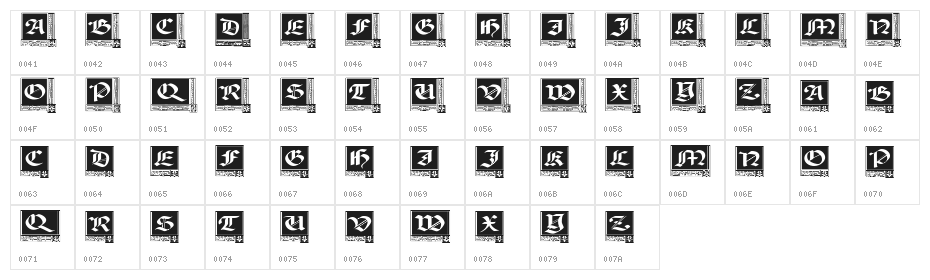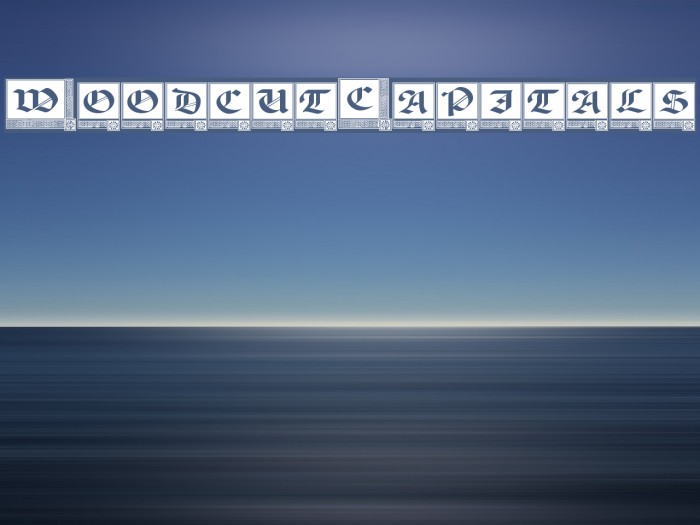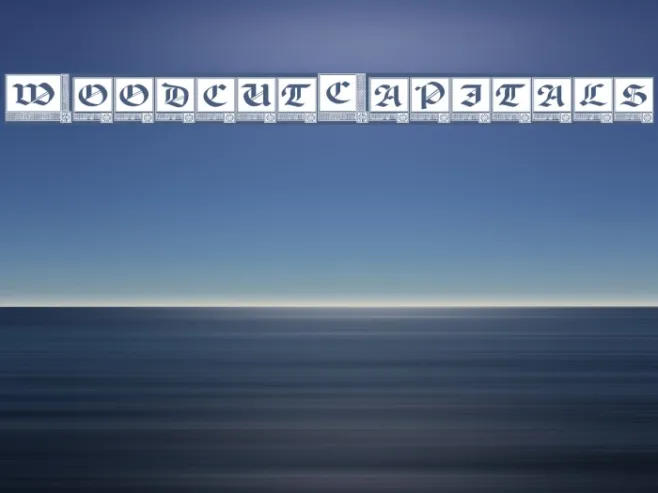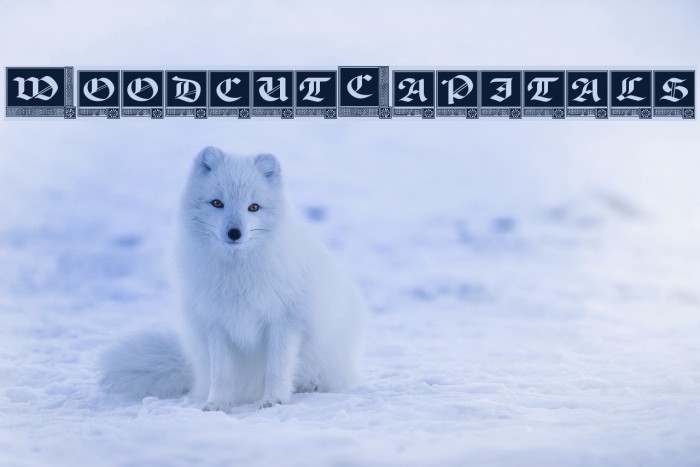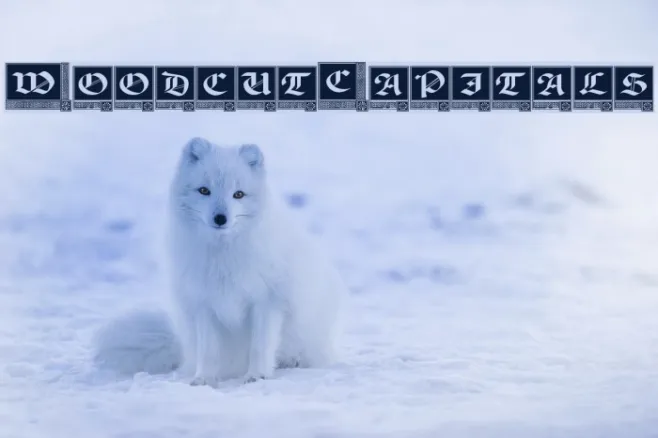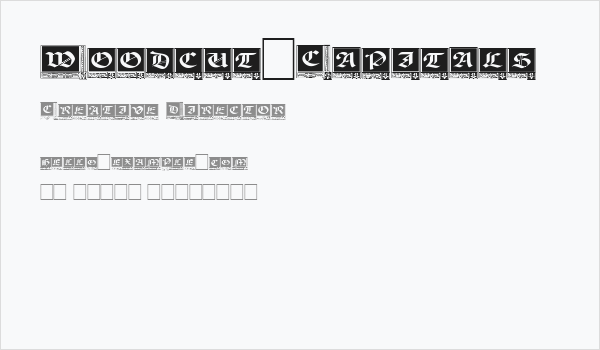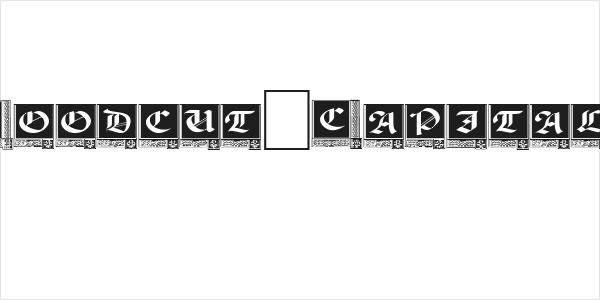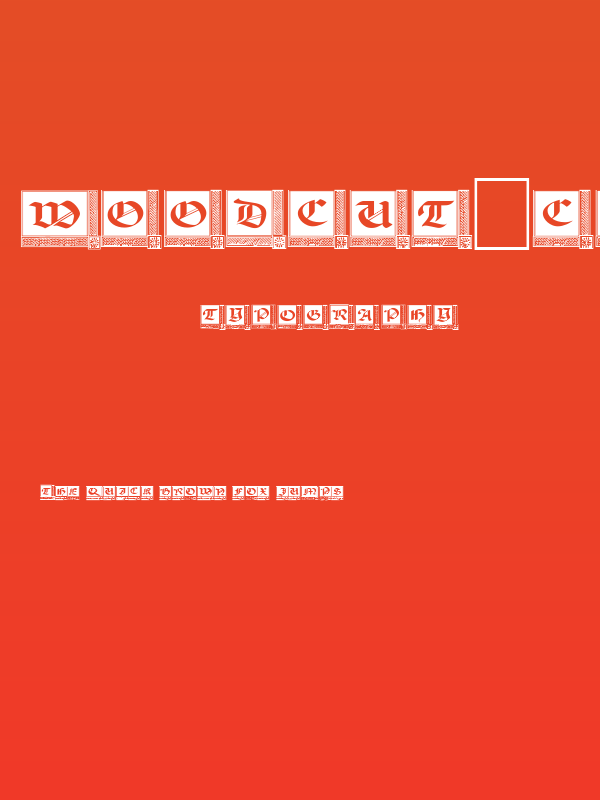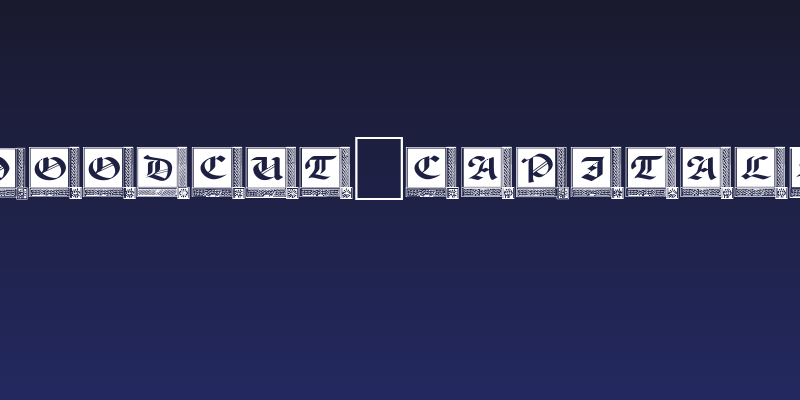
Woodcut_Capitals Font
Woodcut_Capitals Description
This font features a bold and intricate design reminiscent of traditional woodcut techniques. Each letter is enclosed in a decorative square frame, adding a sense of formality and elegance. The characters are highly stylized with sharp angles and flourishes, typical of a blackletter style. The font's ornate details and historical aesthetic make it suitable for projects that require a classic or vintage touch. Its unique appearance draws attention, making it ideal for decorative purposes.
| Overall Style | Vintage, Decorative |
| Use Case | Headlines, Logos, Decorative text |
| Proposed Projects | Ideal for vintage-themed designs, book covers, posters, and invitations that require a historical or formal touch. |